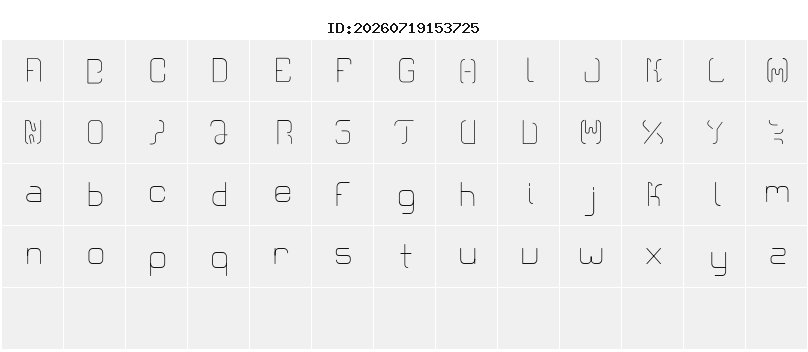
About CR21MODERN.ttf
CR21MODERN.ttf is a modern, elegant sans-serif font designed for ultimate readability and visual harmony. Perfect for branding, headlines, web design, and print materials.